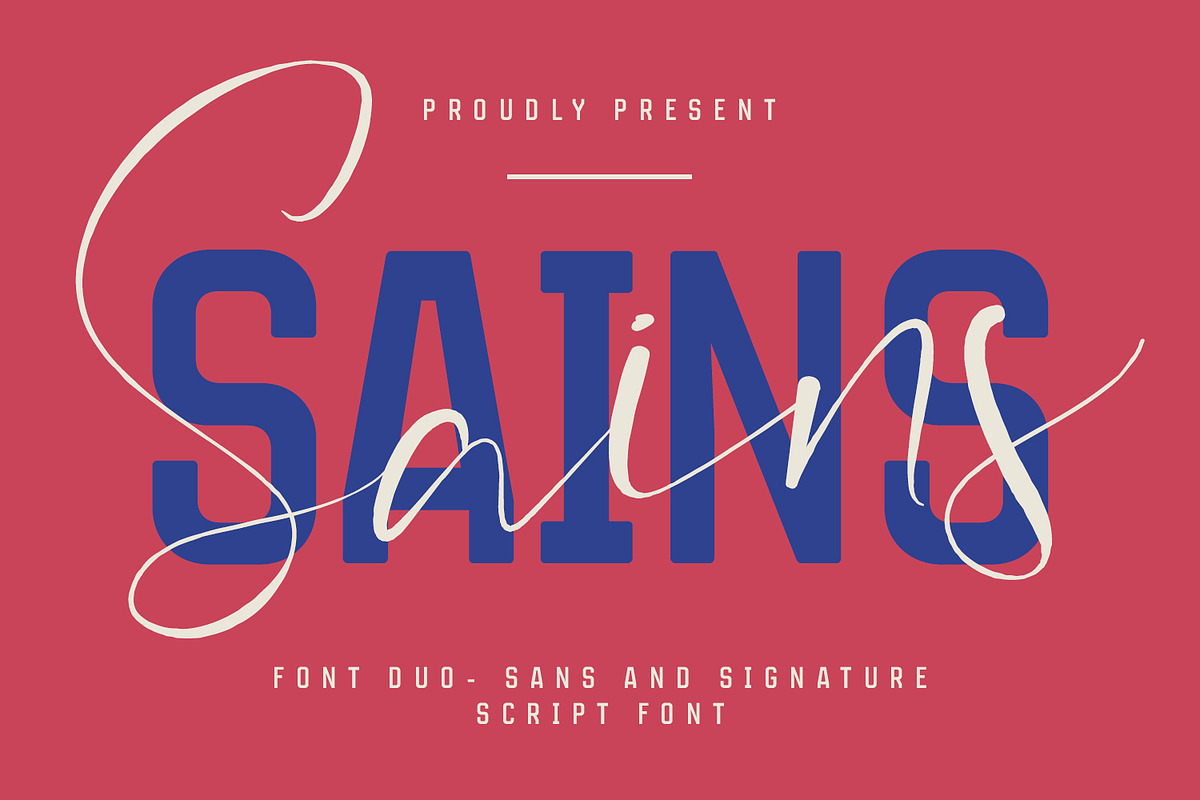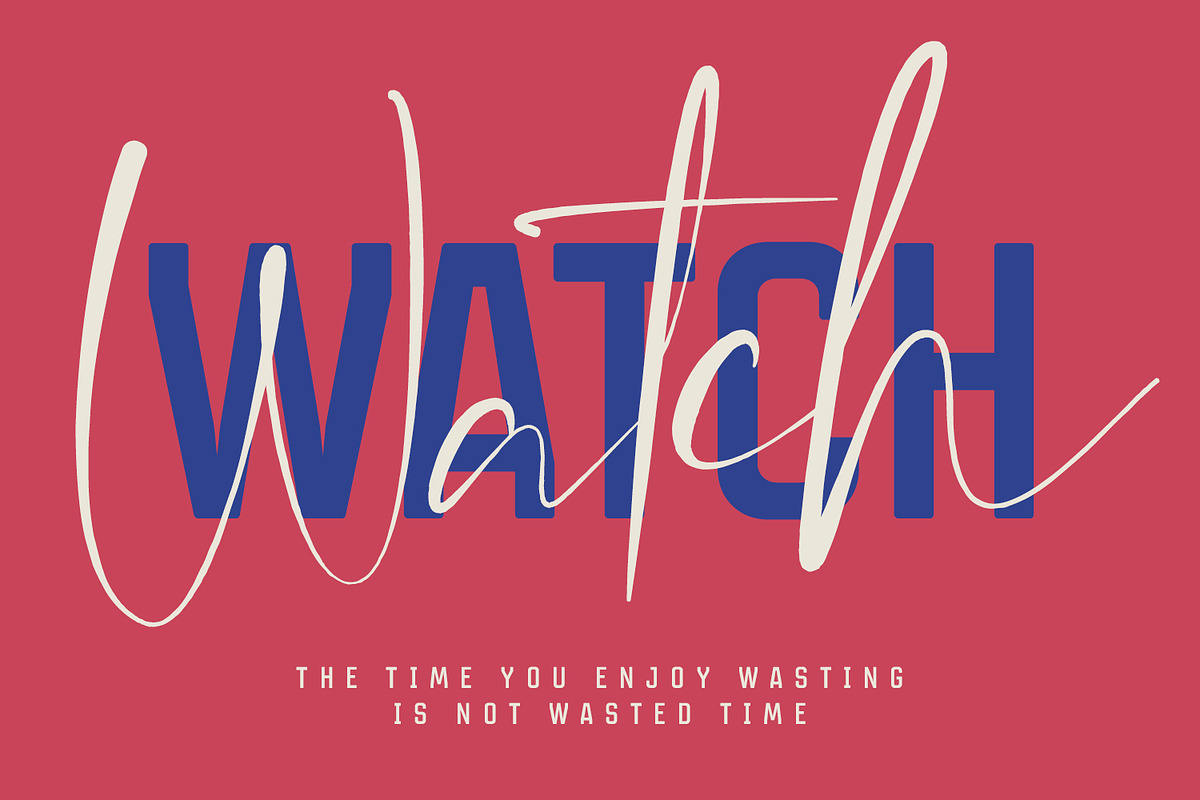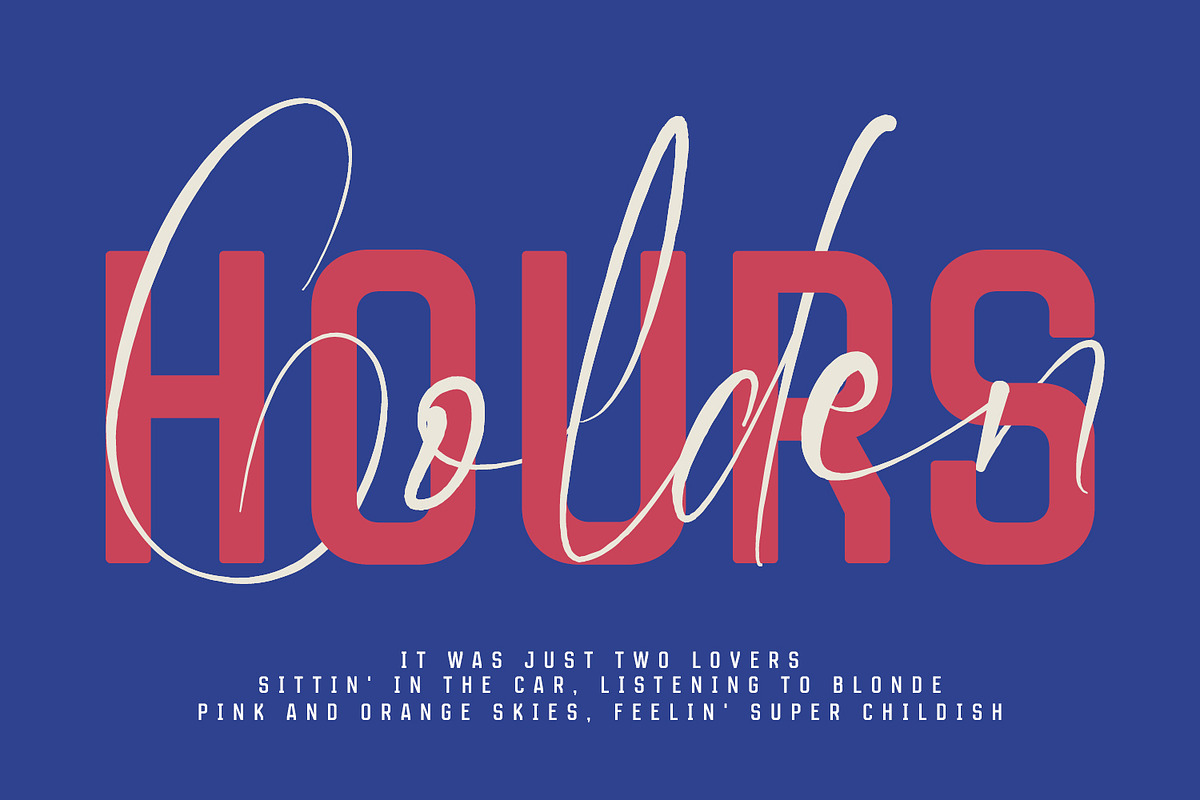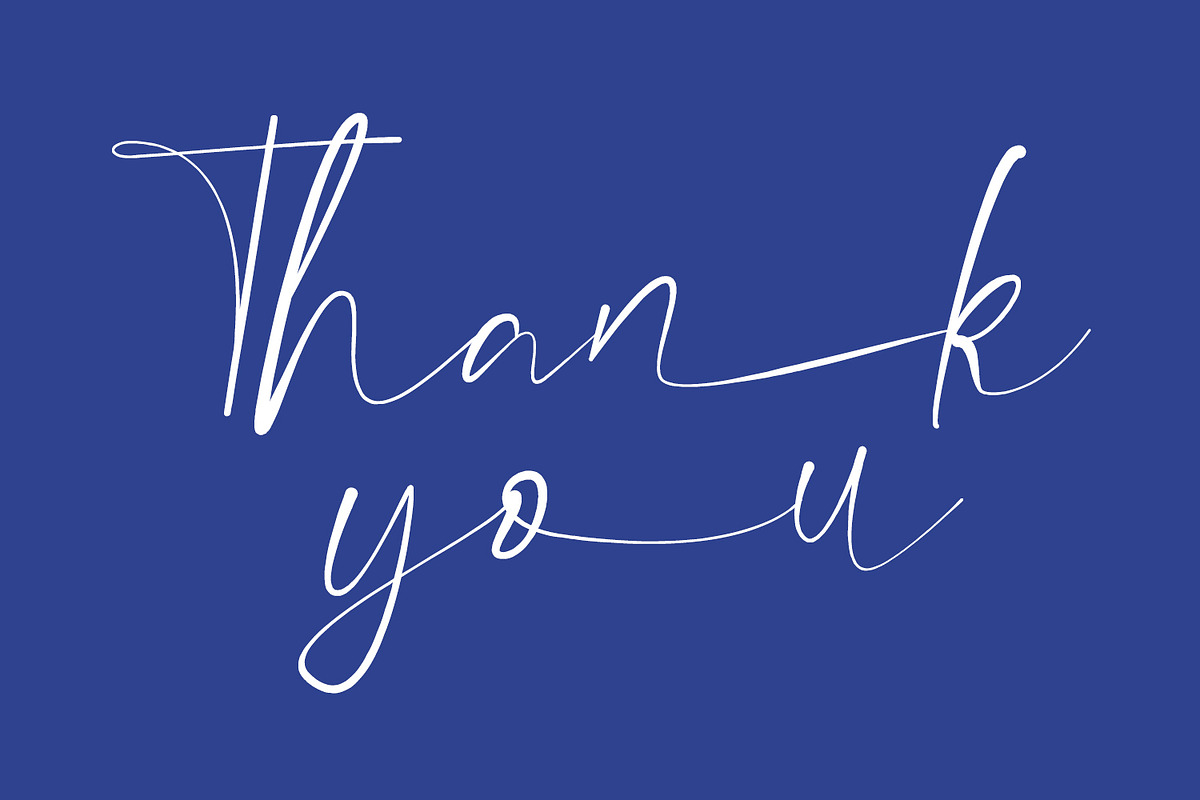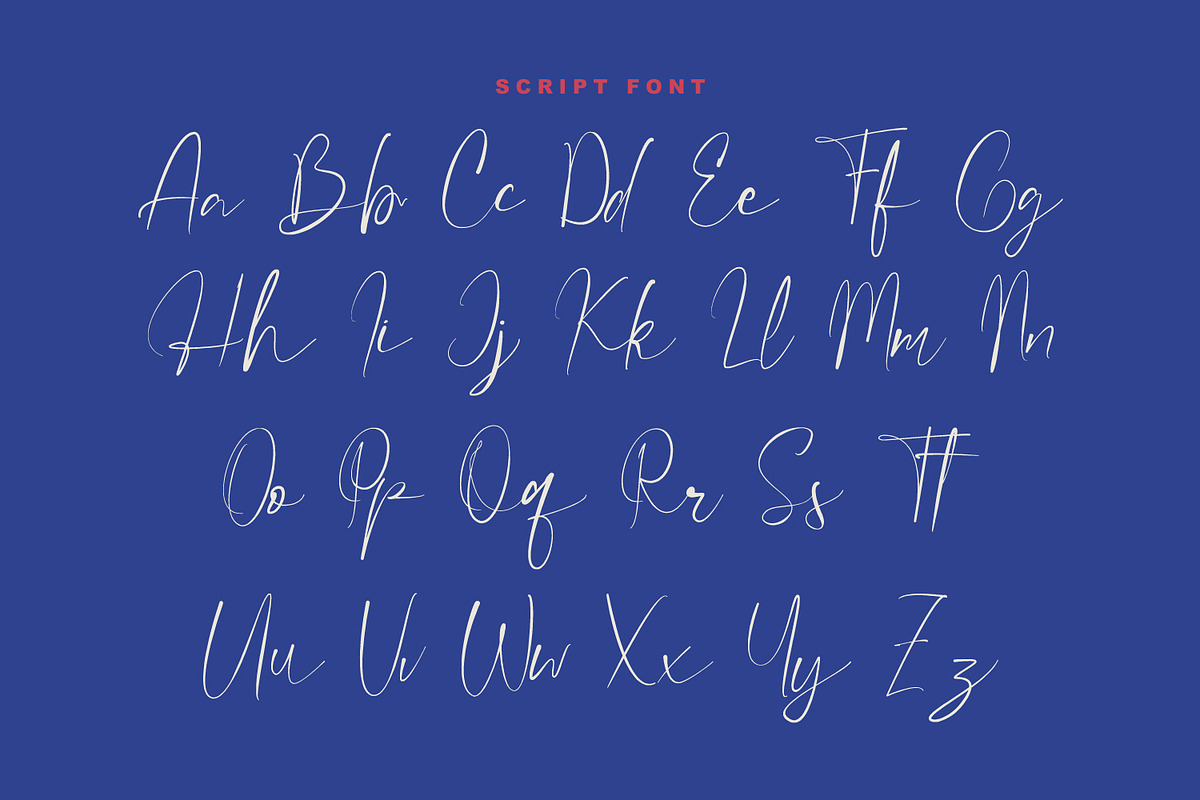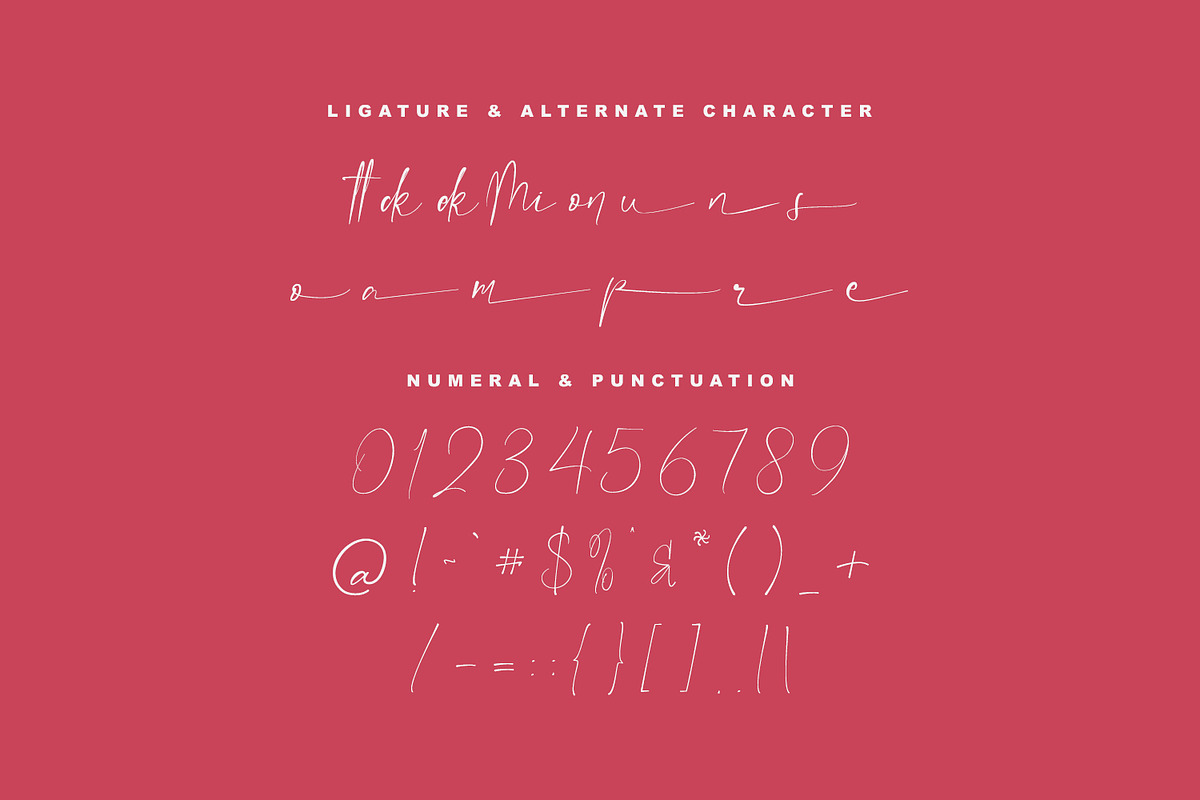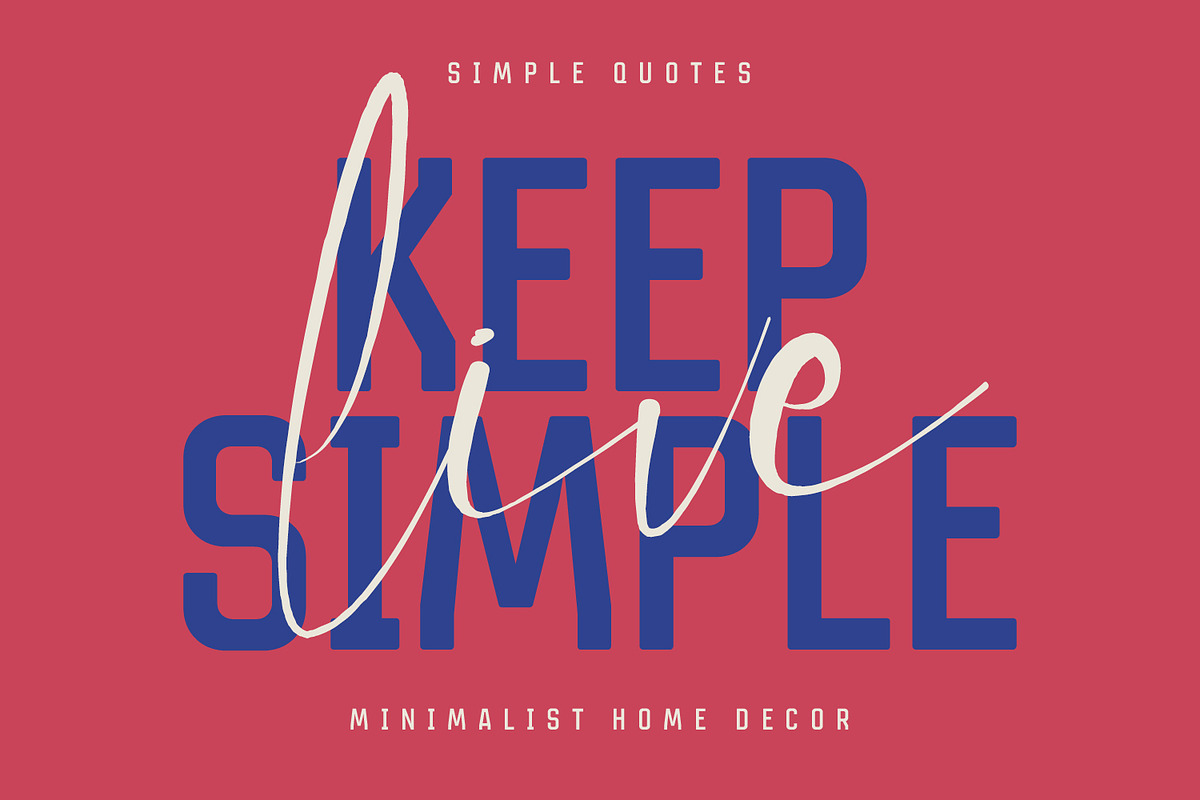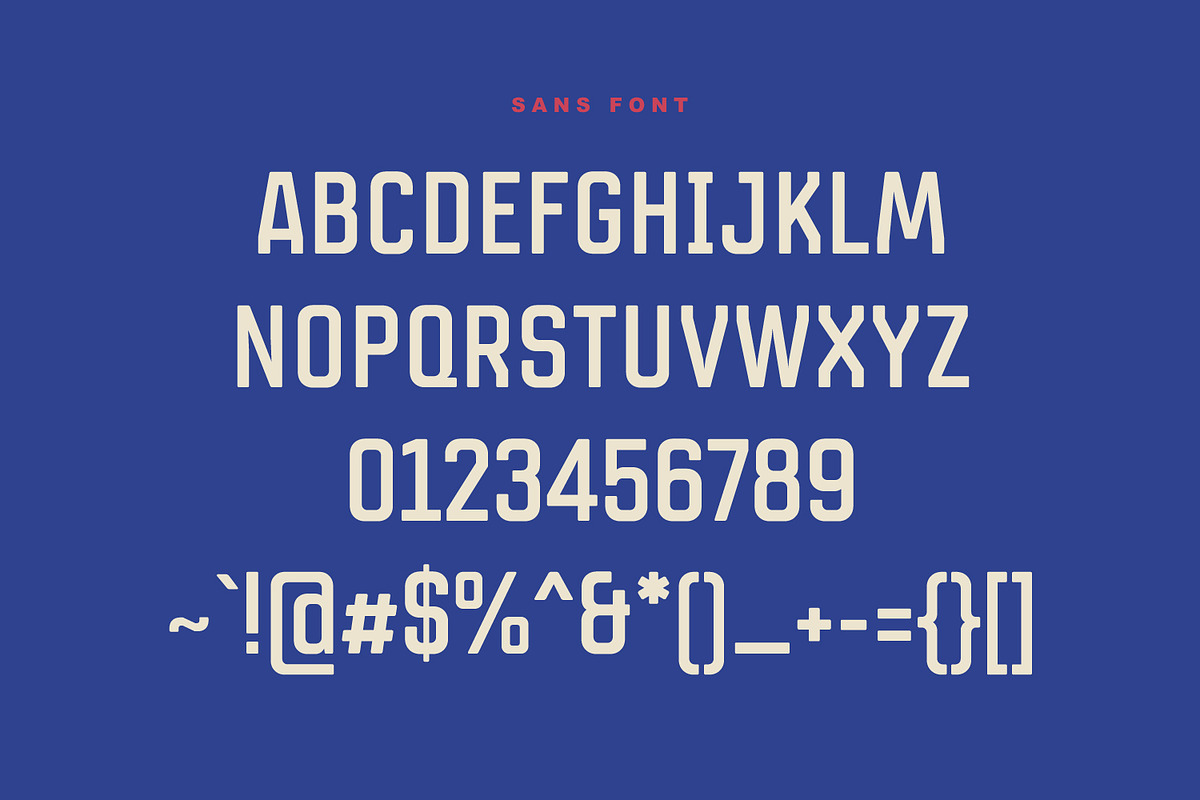
Sains Font Duo Script Free Sans
Give your designs an authentic brush handcrafted feel. “ Sains” is perfectly suited to signature, stationery, logo, typography quotes, website header, branding and more.